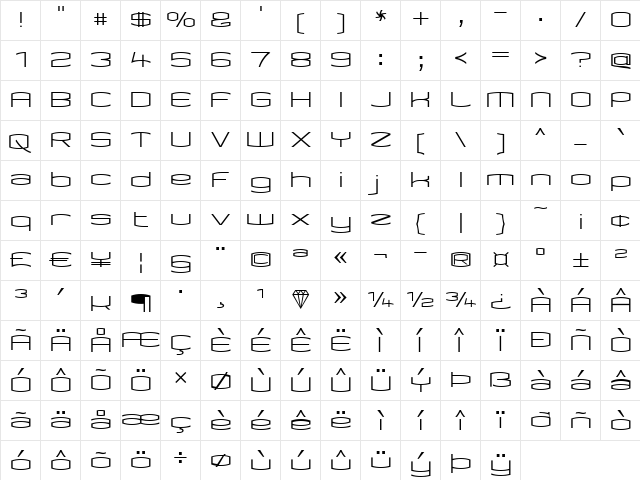
Kameleon Regular Font Preview
Kameleon Regular
Kameleon Regular Font Details
| Designer | Graham Meade |
Design Context for Kameleon Typeface
Kameleon offers clean, dependable letterforms without strong stylistic allegiance, making it a practical choice for designers who need flexibility.